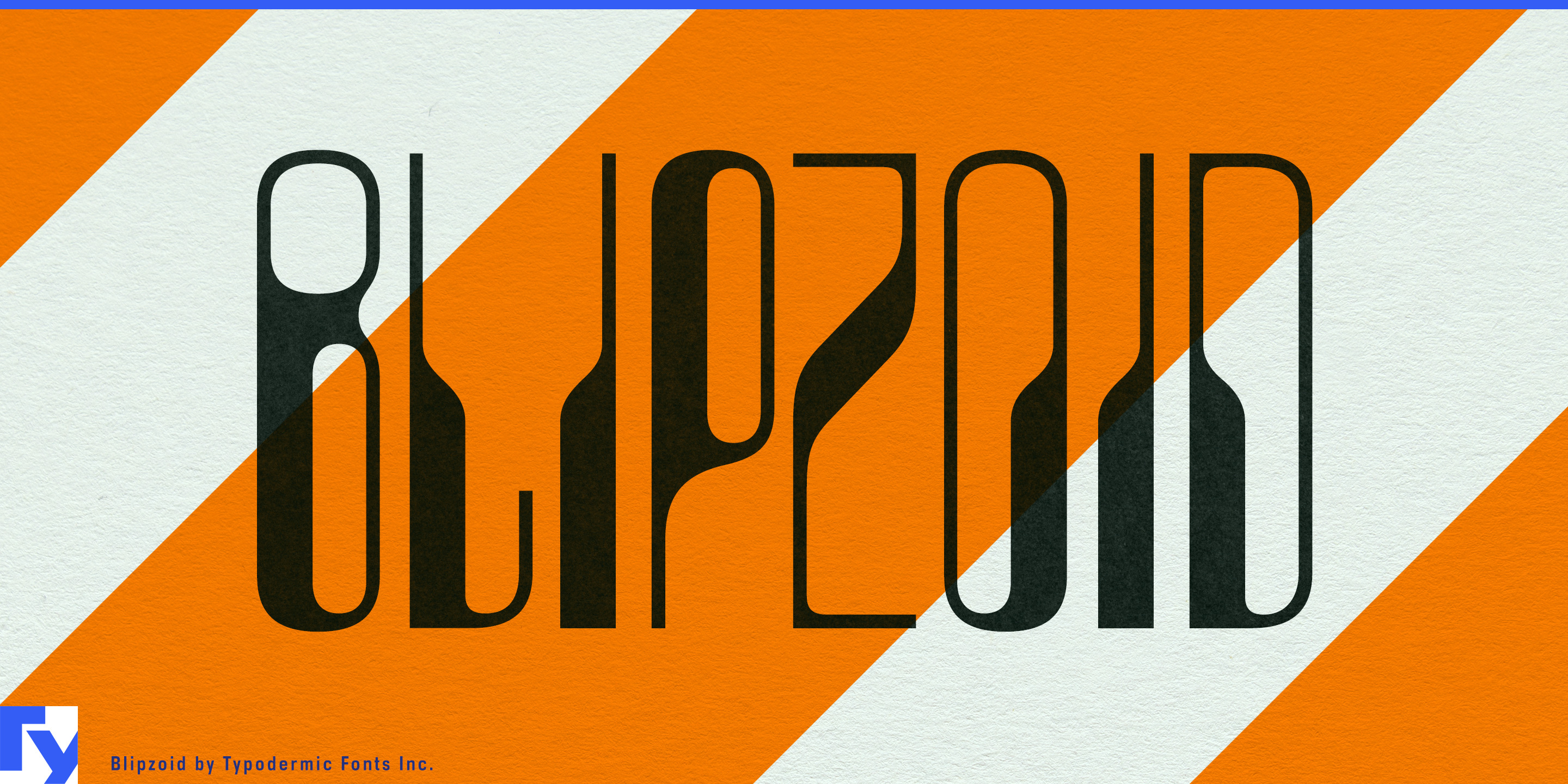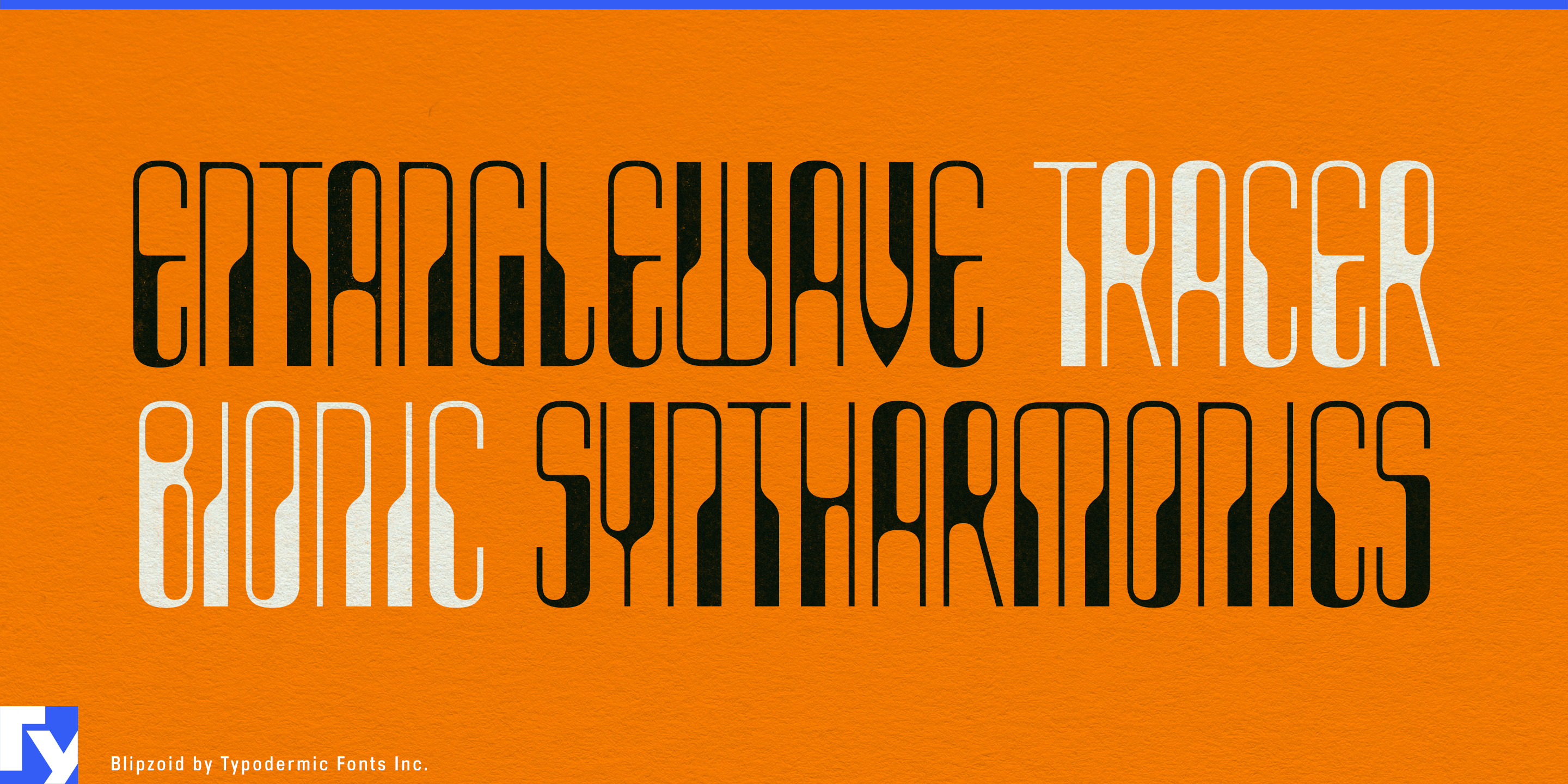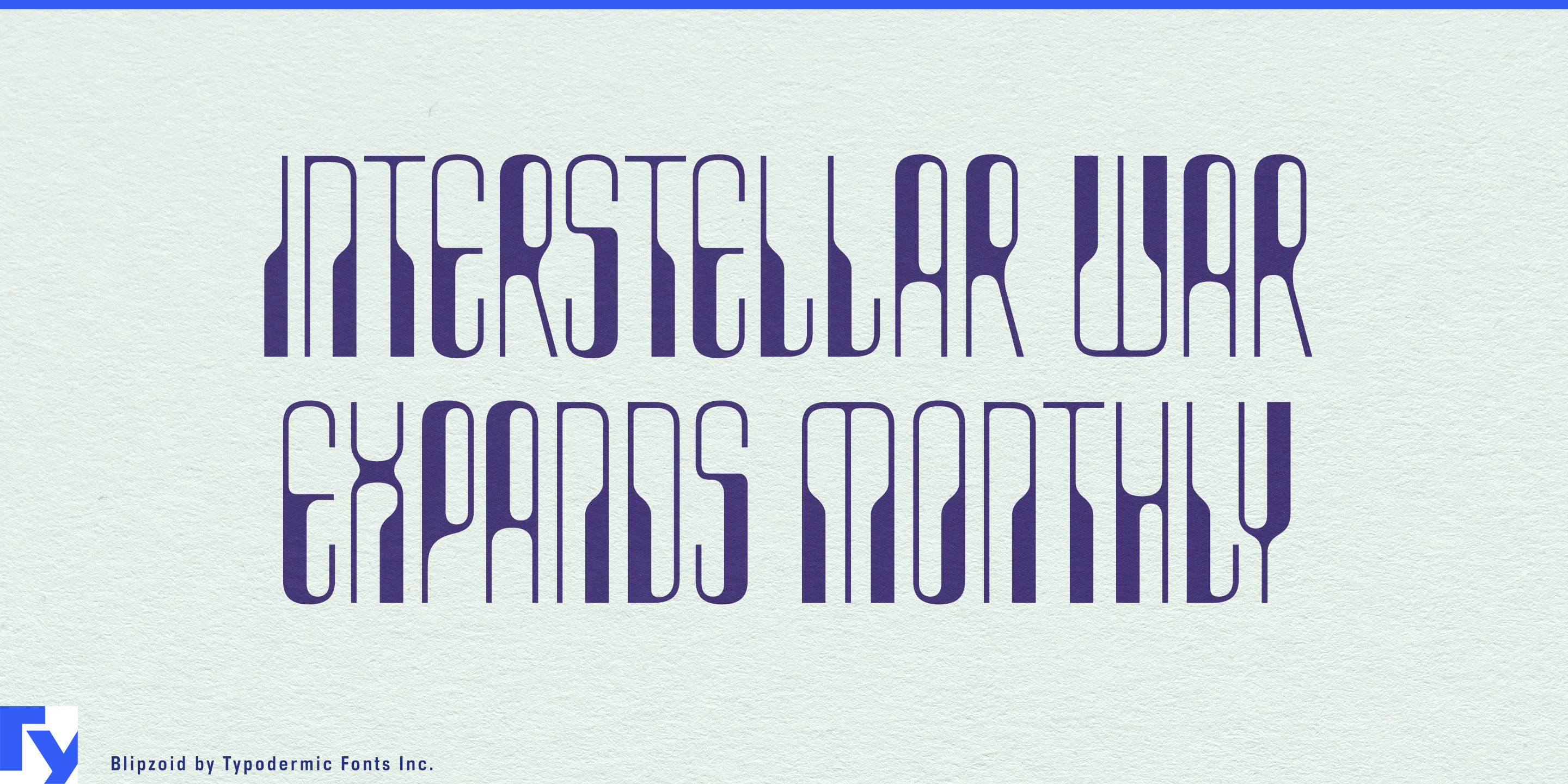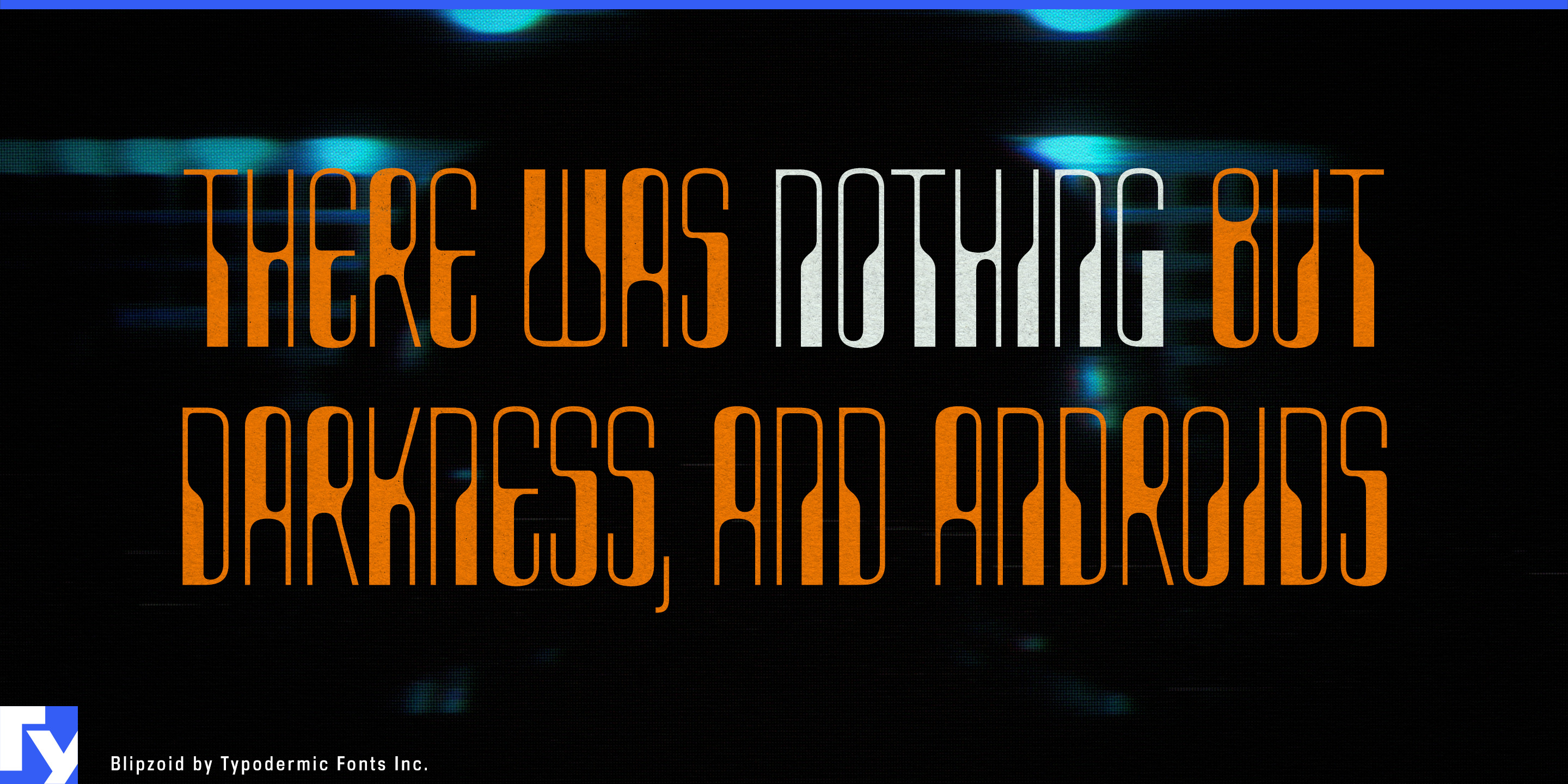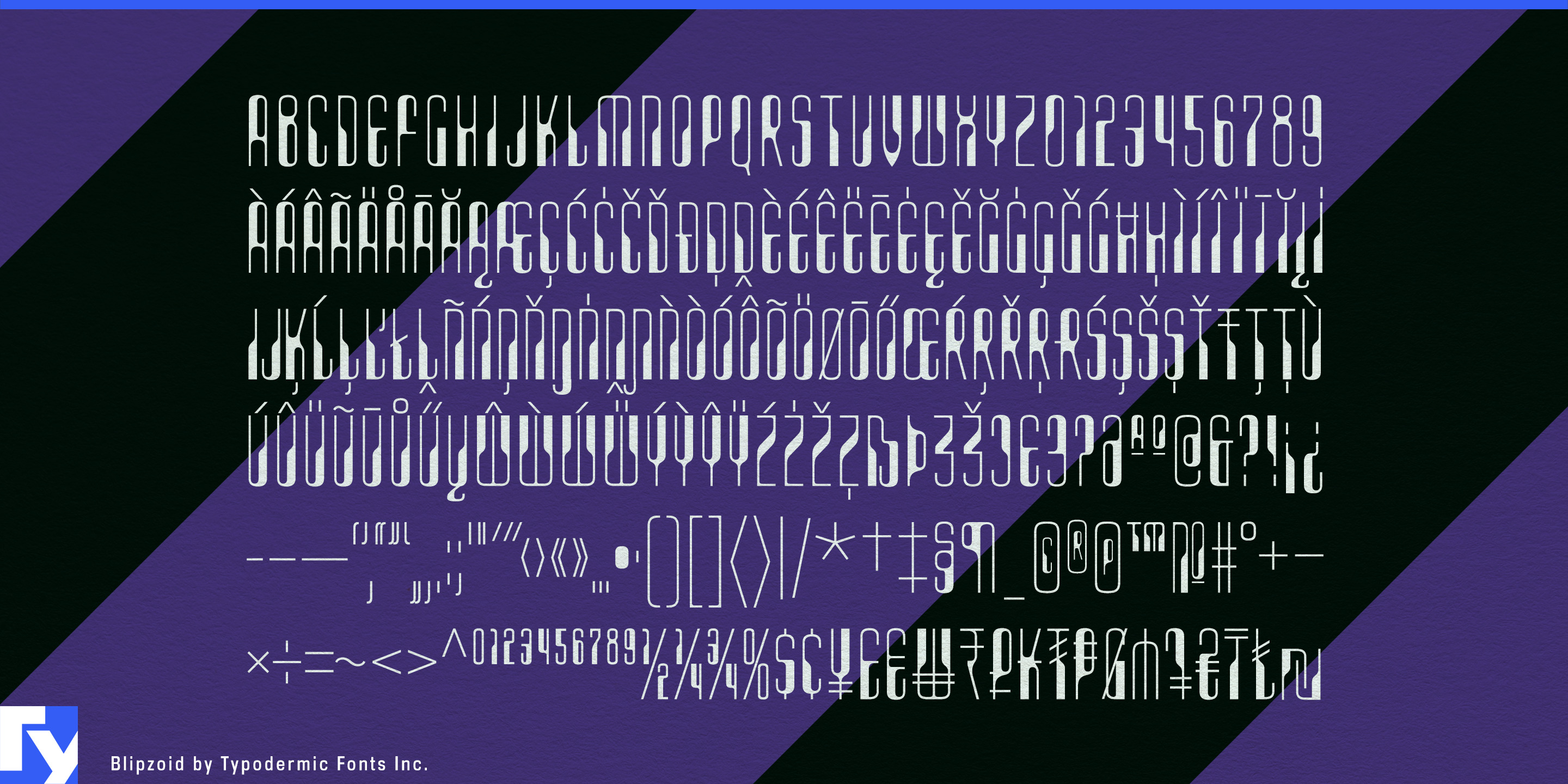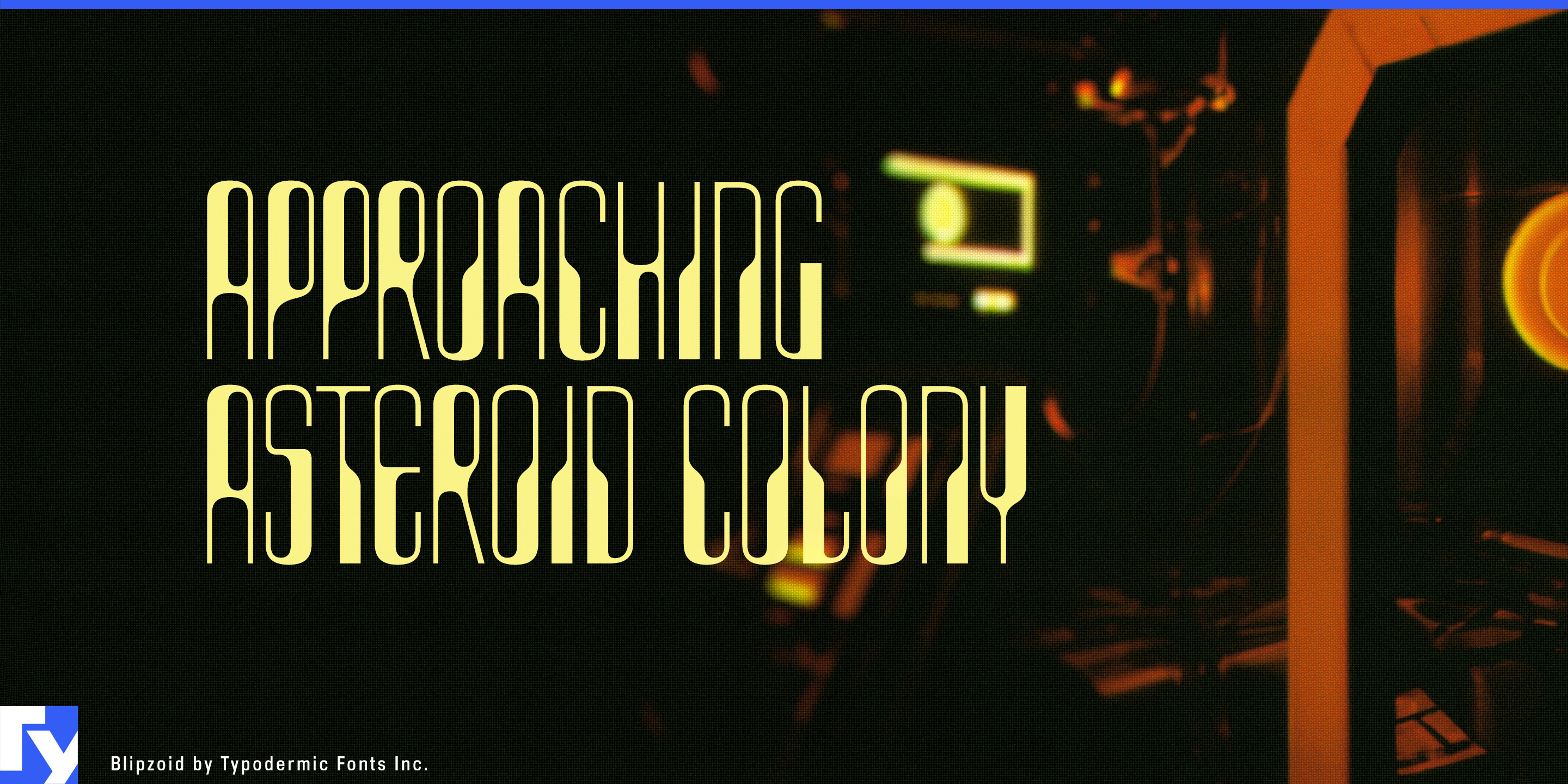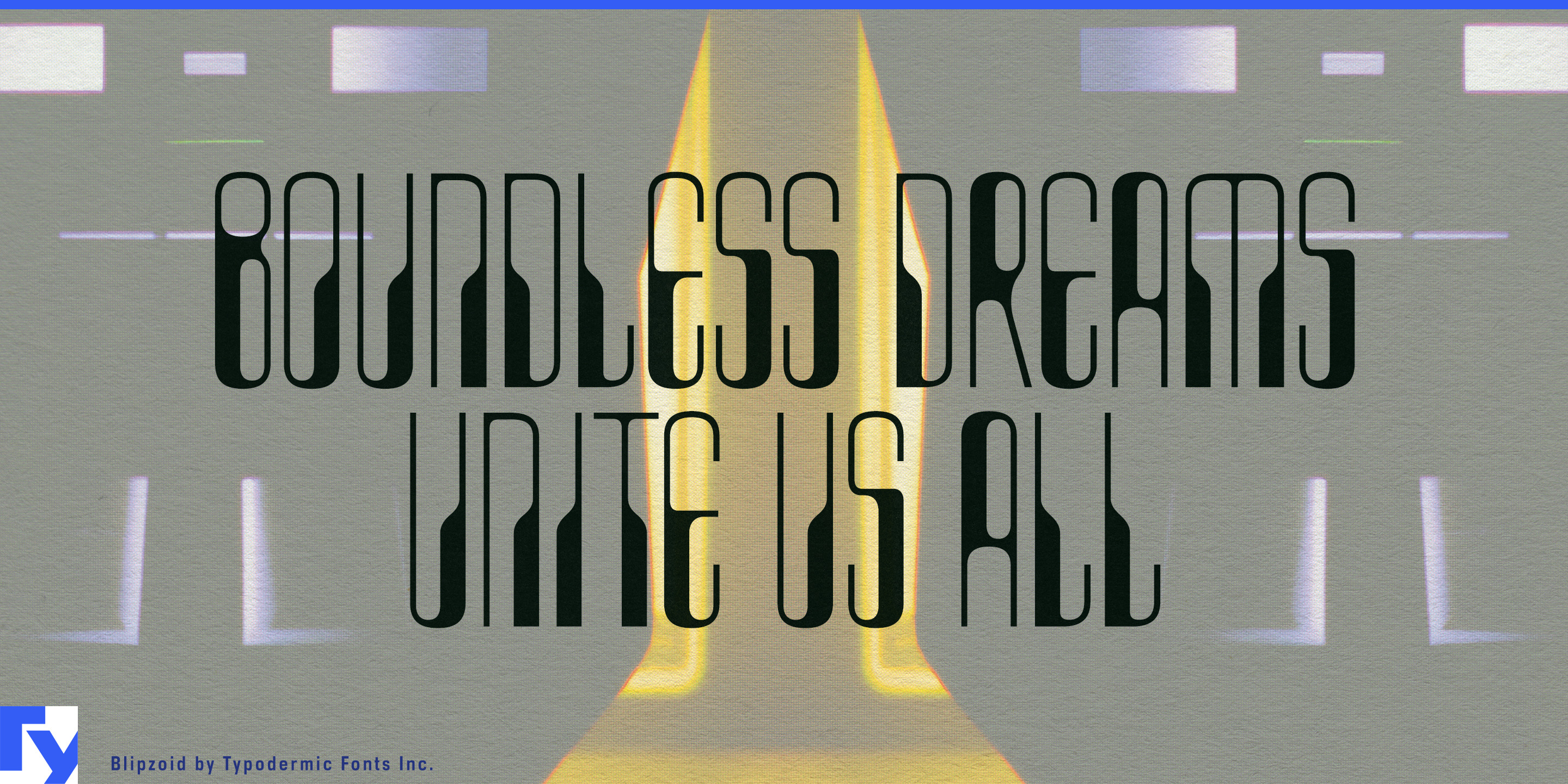
Blipzoid
Some display faces look technical by becoming harder, squarer or more aggressive. Blipzoid takes a different route. Its narrow proportions, swelling curves and fine connecting strokes give machine-influenced geometry a polished, delicate finish that works especially well on products where engineering and styling share the same surface.
Audio equipment is a natural fit. Headphones, earbuds, portable DACs, headphone amplifiers, streamers and compact hi-fi components often need model names to fit onto narrow faceplates, earcups and housings. Blipzoid’s extreme compression lets those names remain large and distinctive without demanding much horizontal space.
Smaller precision products suit it just as well. Phono stages, cartridges, wireless audio units and field recorders can use Blipzoid for product families and model designations, leaving controls, specifications and fine technical information to a quieter companion face.
The same combination of compression and polish extends into fashion accessories. Eyewear collections, sunglass model markings, watches, sculptural jewellery and metallic or acrylic accessories can use Blipzoid to suggest precision without becoming industrial. Narrow packaging gives the proportions a practical job too; perfume atomizers, mascara tubes, hair-styling devices and compact electronics can carry surprisingly prominent lettering within a slim strip of space.
Blipzoid is strongest where the typography becomes part of the object itself: across a headphone band, along a sunglass temple, down the side of a narrow carton or on the face of a small machined component. Audio hardware, eyewear, watches and compact packaging all benefit from its ability to make long names feel substantial without spreading them across the entire surface.